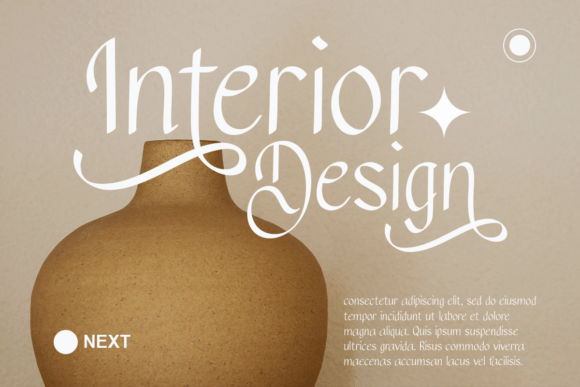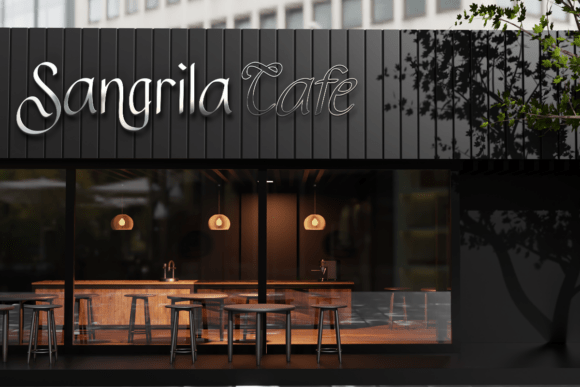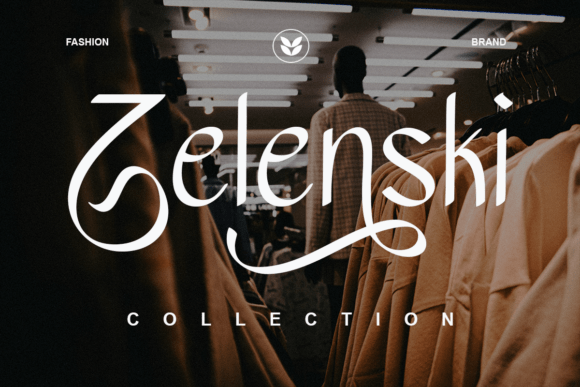
Introduction to Jagat Bumi Font
ðŸŠķ Jagat Bumi – Casual Script Font with Stylish Outline Jagat Bumi is a modern script font that brings an elegant, soft, and naturally handcrafted feel to your design.
With its smooth curves and graceful letterforms, Jagat Bumi perfectly fits a wide range of design projects such as branding, logos, packaging, invitations, jewelry design, cosmetic labels, wedding designs, and editorial art Each style includes beautiful alternates and ligatures, giving every letter a lively and unique appearance.